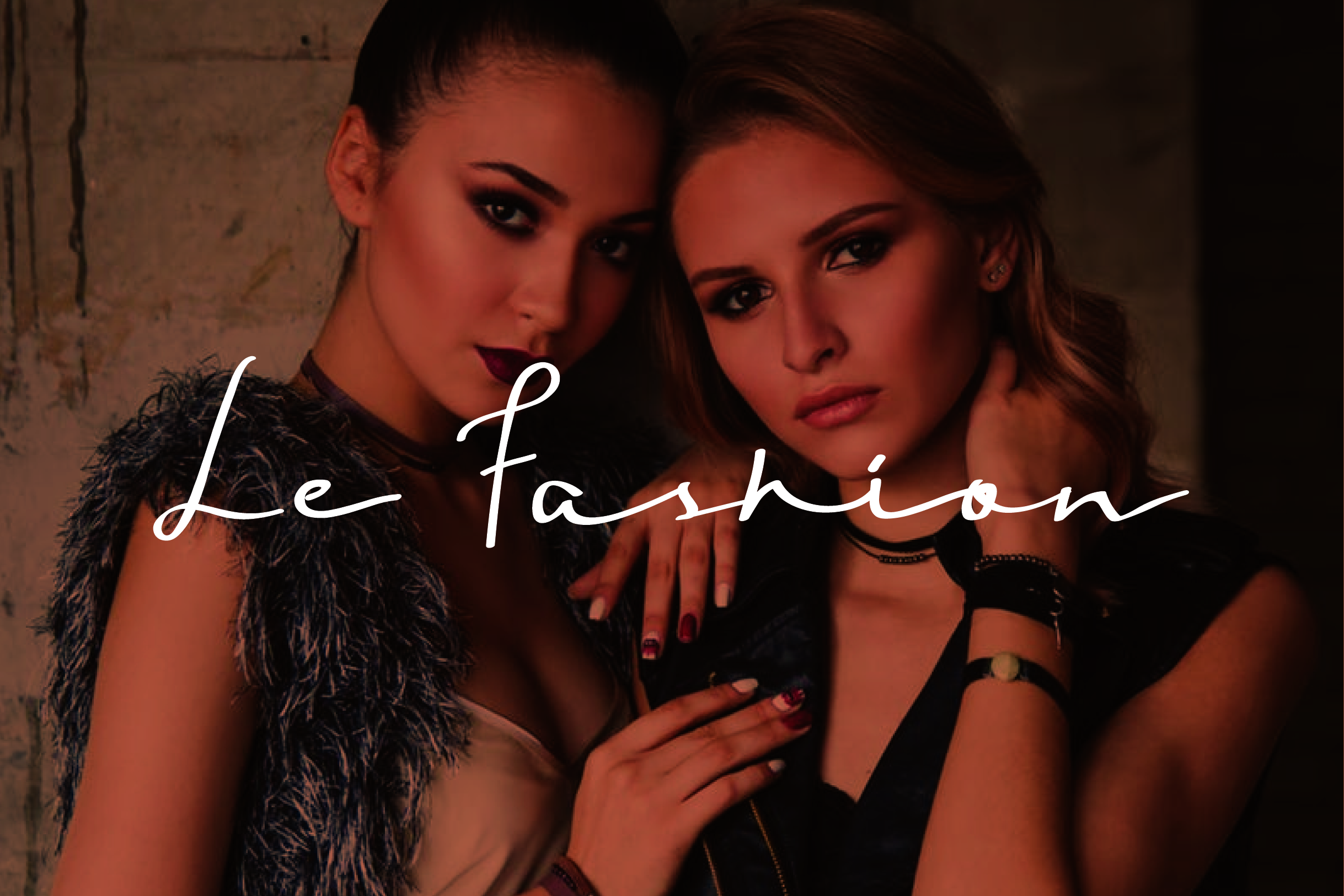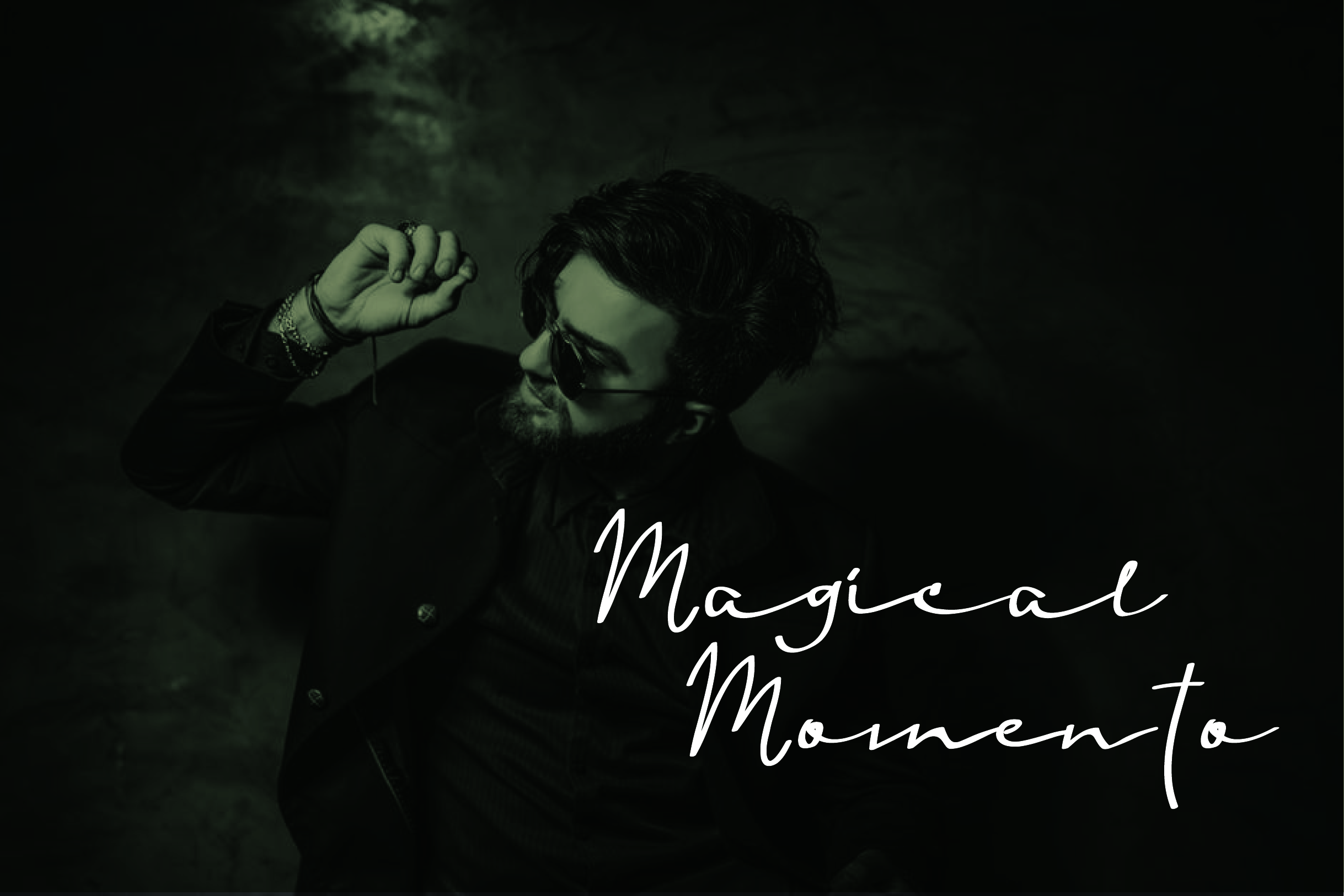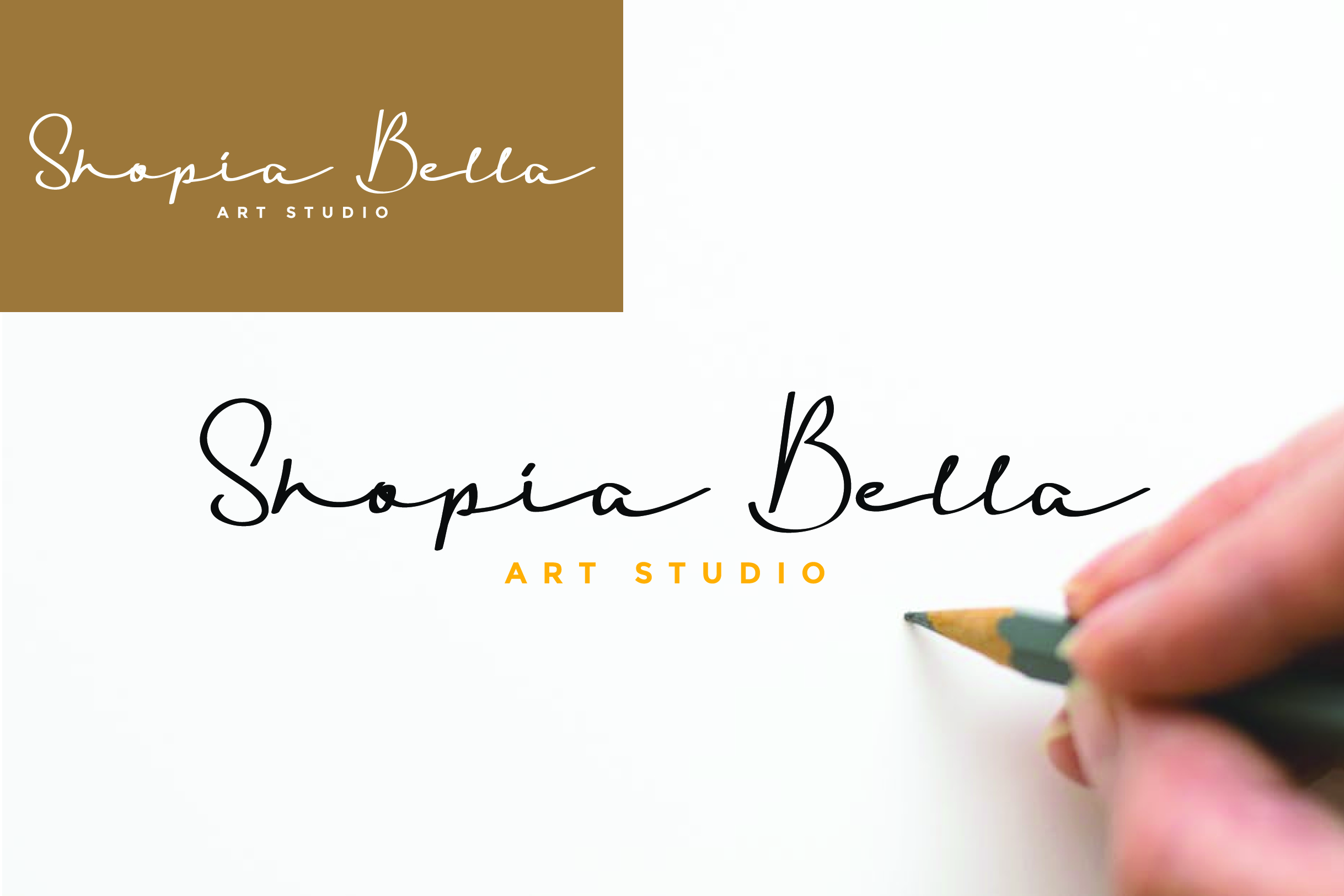
Introduction to Shujuki Font
Shujuki is a elegant handwritten font.
The Shujuki font is perfect for fashion, editorials, magazines, e-commerce and much more It’s classy letters make it also great for fashion an apperal.
Shujuki Font offers exceptional quality and versatility, making it a valuable addition to your design toolkit. Whether you’re creating for personal projects or commercial use, Shujuki Font delivers professional results.